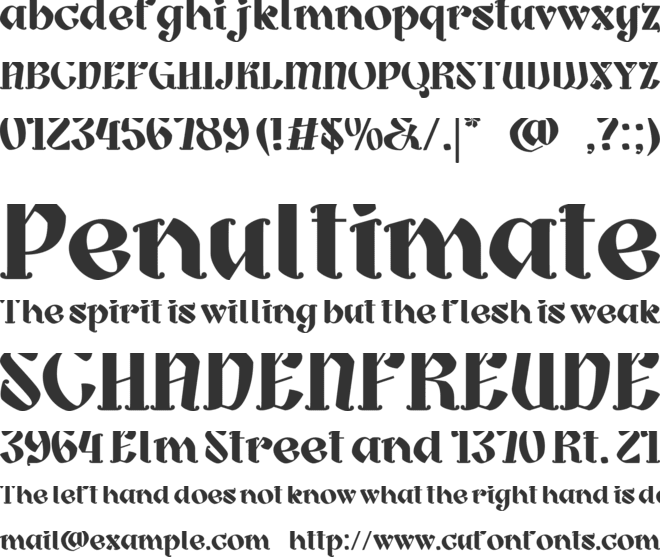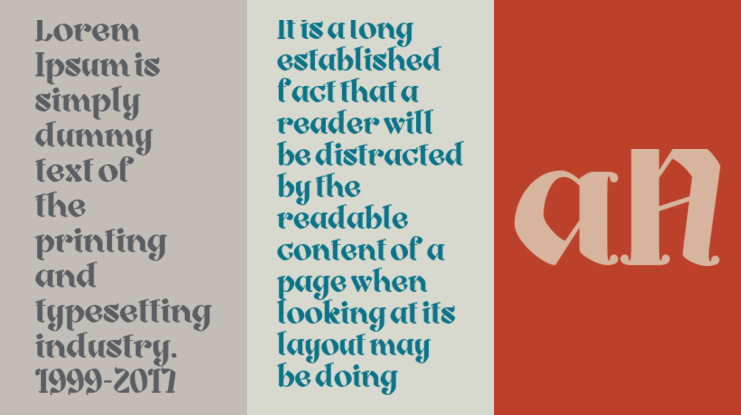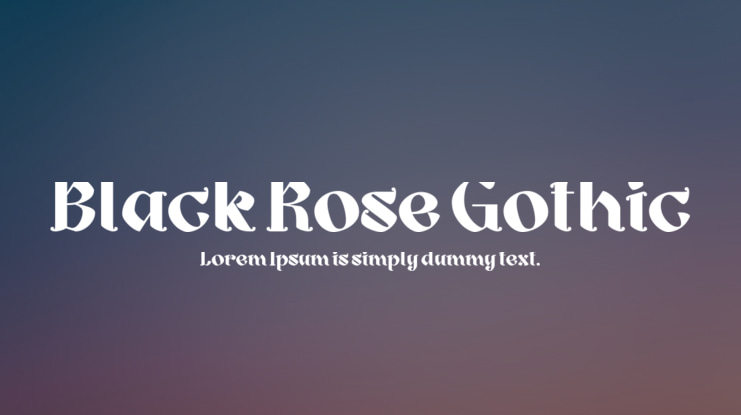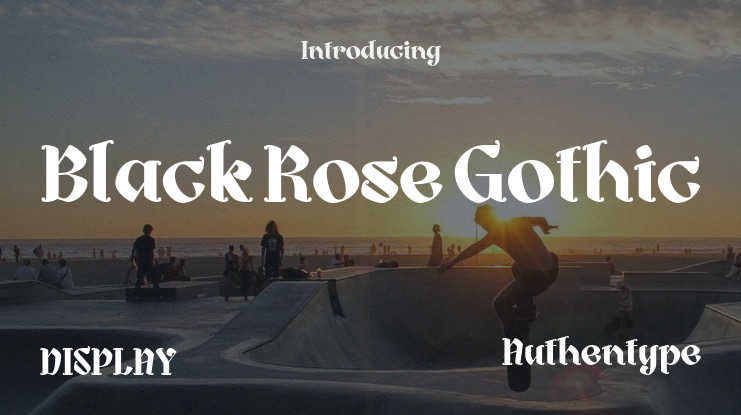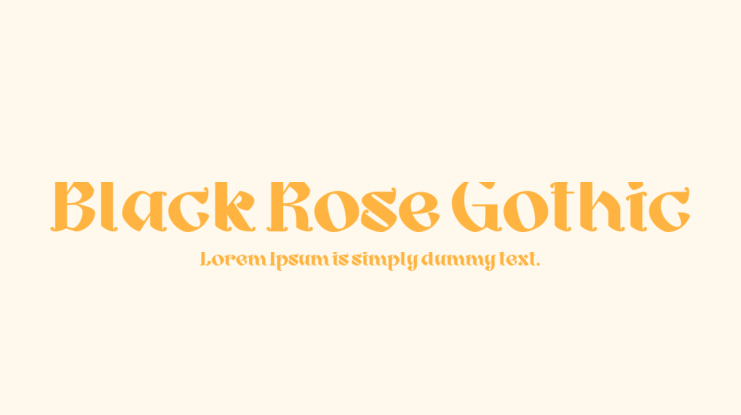
Black Rose Gothic Font
Black Rose Gothic Font is a refined gothic serif font that elegantly marries dark sophistication with a vintage allure. This captivating font boasts meticulously crafted swashes, stylistic sets, and ligatures, adding a unique, artistic touch to every letter. Its timeless gothic style is perfect for evoking a moody and romantic aesthetic, bringing both sophistication and depth to any project.
Allow Black Rose Gothic to infuse your designs with mystery and elegance, making it a standout choice for those aiming to make a bold, beautiful statement.